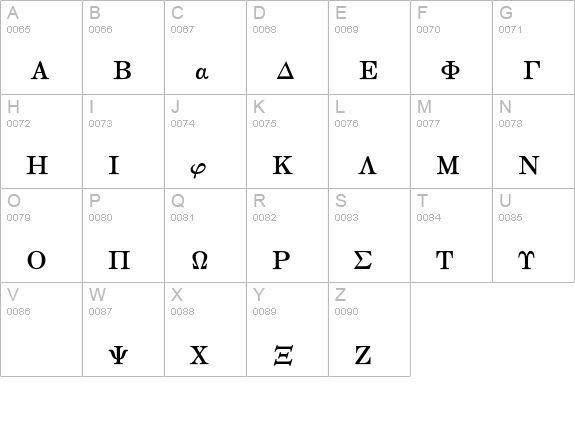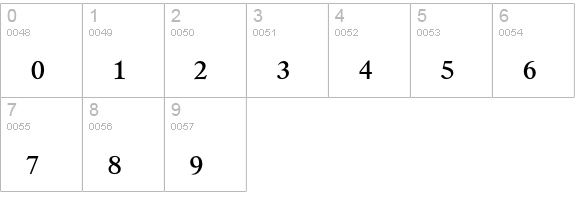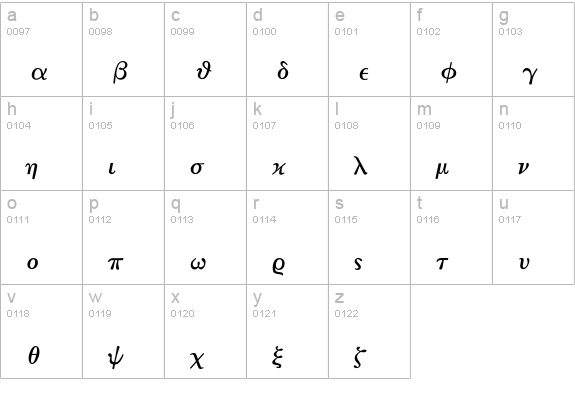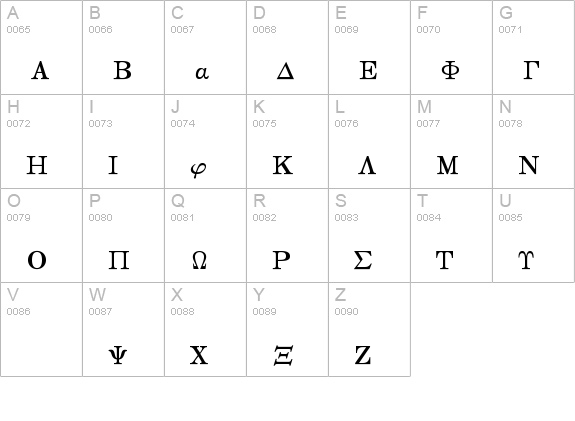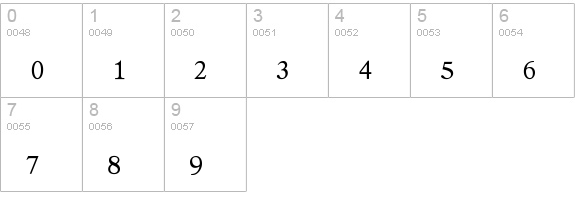
MathTechnicalP10 Font Details
MathTechnicalP10 is a versatile and dynamic font that is perfect for all your mathematical and technical needs. With its clean lines and precise design, this font is ideal for creating equations, formulas, and scientific notations with ease and clarity. What sets MathTechnicalP10 apart is that it is not only highly functional but also completely free. Yes, you read that right - this incredible font is freely available to download at FontsMarket.com. Whether you're a student, a teacher, or a professional in the field of mathematics or science, this font is a must-have in your collection. With MathTechnicalP10, you can effortlessly create professional-looking documents, presentations, and publications that require mathematical symbols and expressions. From complex equations to intricate diagrams, this font provides the perfect balance of legibility and elegance, ensuring that your work stands out from the rest. Designed with precision and attention to detail, MathTechnicalP10 is optimized for both screen and print use. Its consistent stroke width and spacing make it easy to read, even at small sizes, while its bold and distinct characters ensure maximum impact and clarity. Whether you're working on a research paper, a textbook, or a technical report, MathTechnicalP10 will simplify the process of incorporating mathematical elements into your work. Its extensive range of symbols, operators, and mathematical notations will save you time and effort, allowing you to focus on the content rather than the formatting. So why wait? Enhance your mathematical and technical documents today with MathTechnicalP10 - the free font that combines functionality, style, and accessibility. Download it now at FontsMarket.com and unlock a world of possibilities in the realm of mathematics and science.